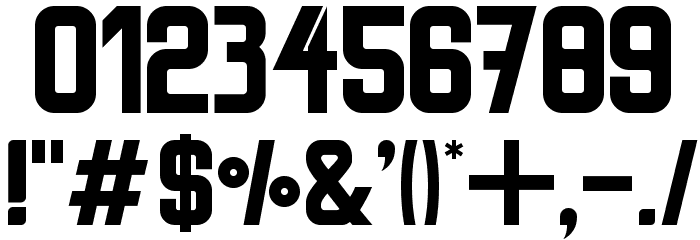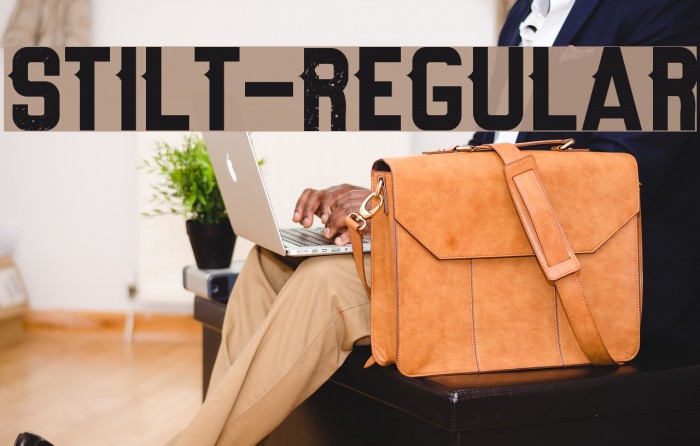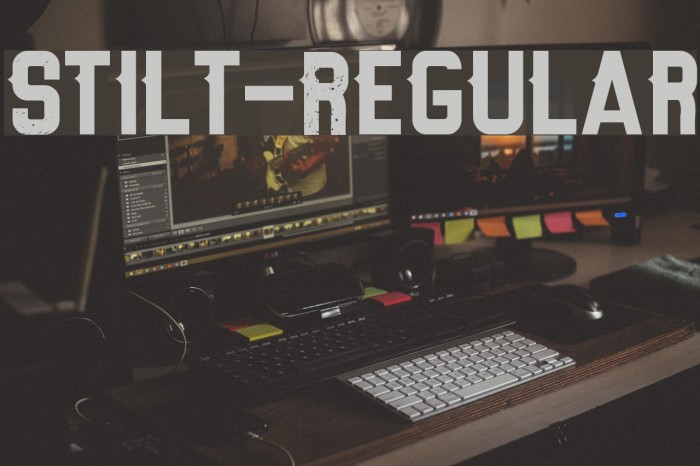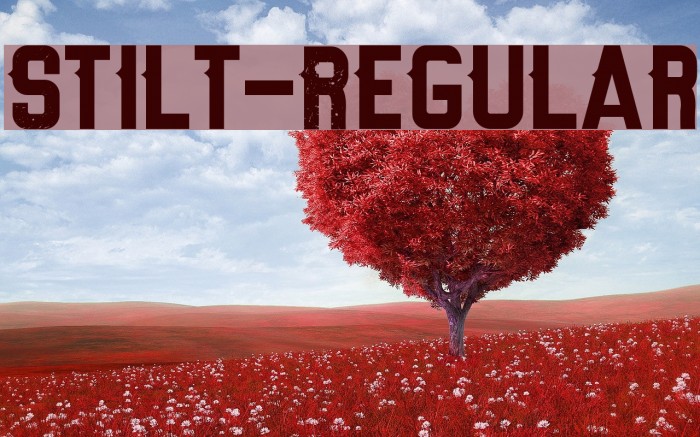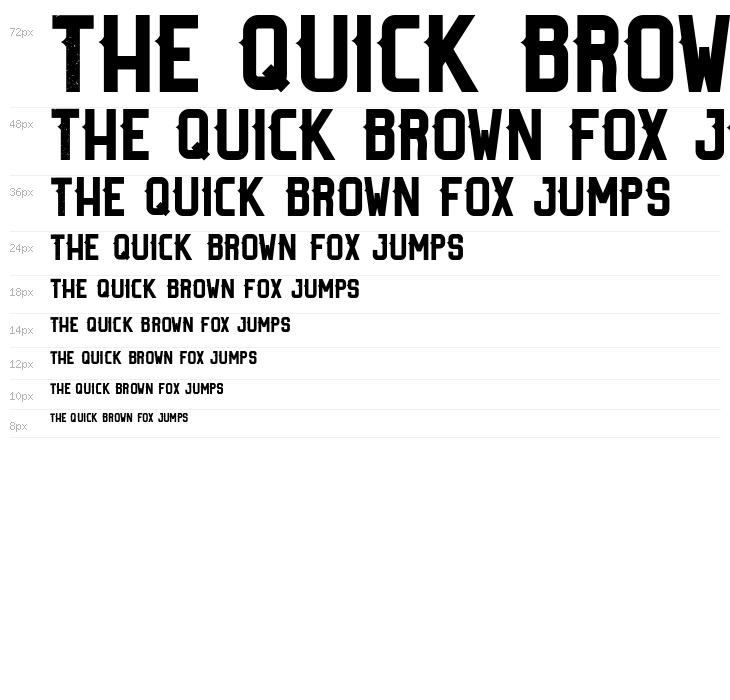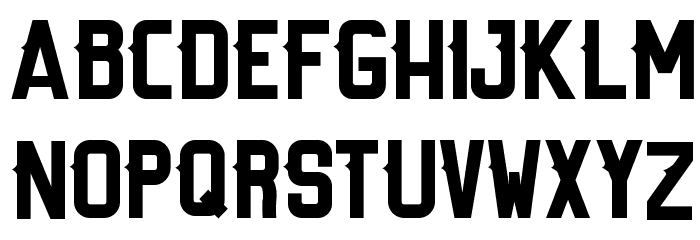
Stilt-Regular Font
Stilt-Regular Description
This font features a bold and impactful design with a distressed texture that gives it a rugged, vintage appearance. The uppercase letters are strong and angular, while the numbers are equally robust, making them stand out. The special characters maintain the same boldness, ensuring consistency across all glyphs. The texture adds a unique character, making it suitable for designs that require a gritty, industrial feel. Its boldness and distinct style make it ideal for attention-grabbing headlines or logos.
| Proposed Projects | Ideal for posters, logos, branding, and any design requiring a strong, vintage aesthetic. |